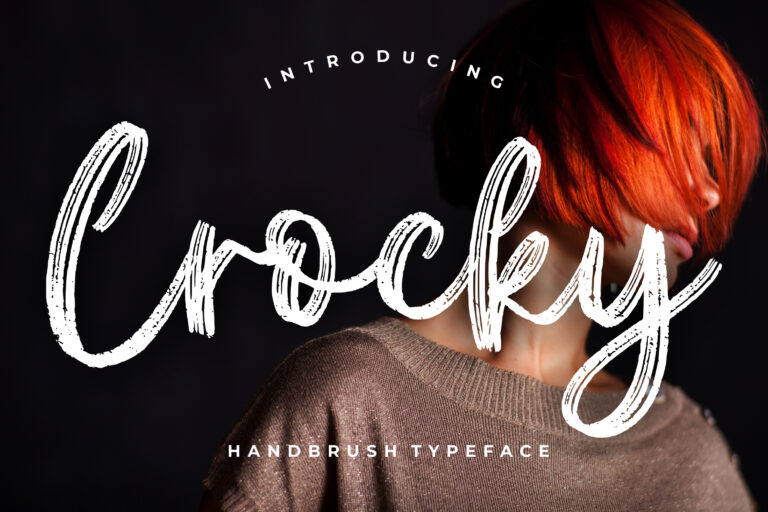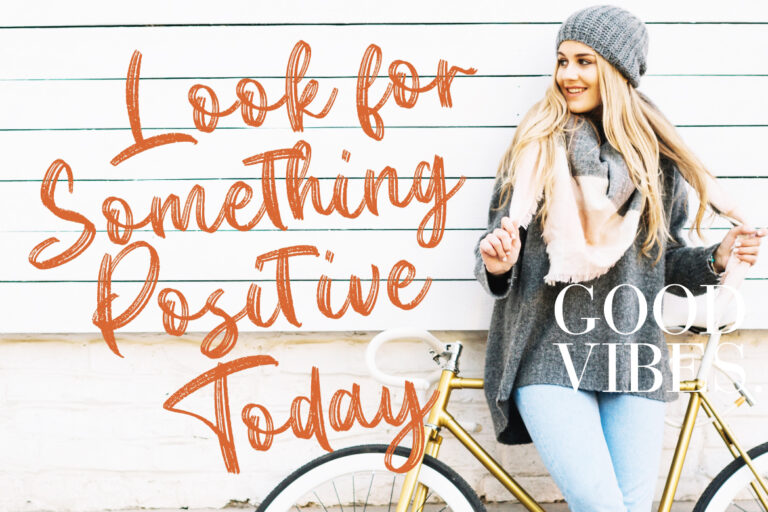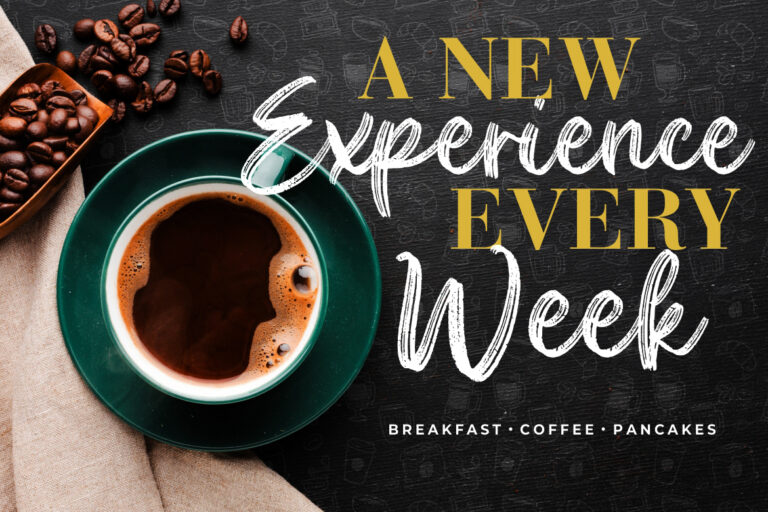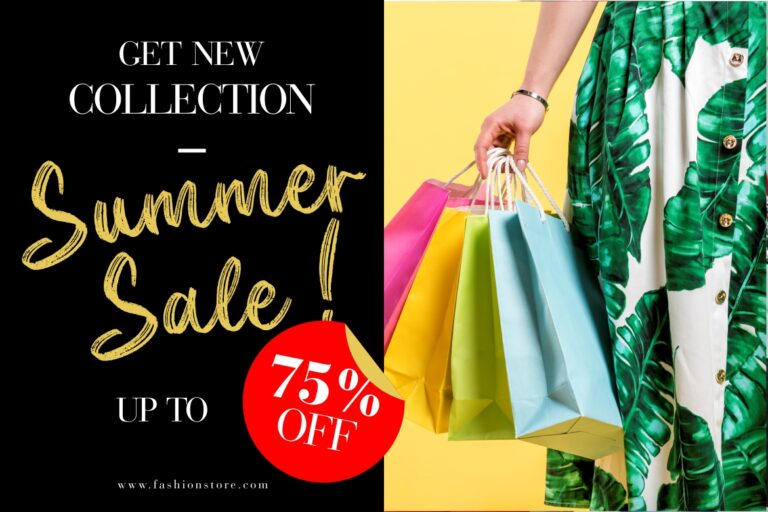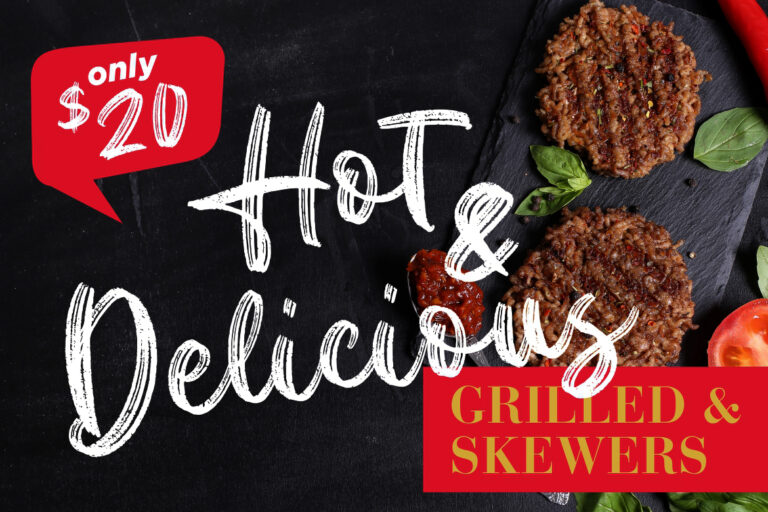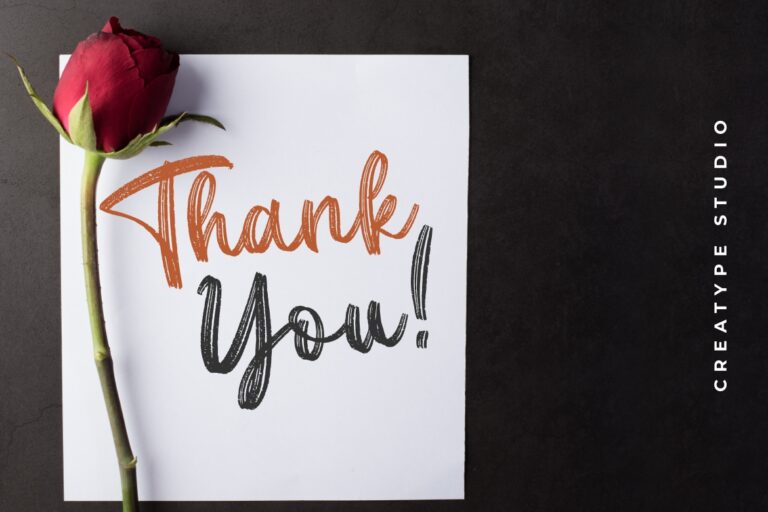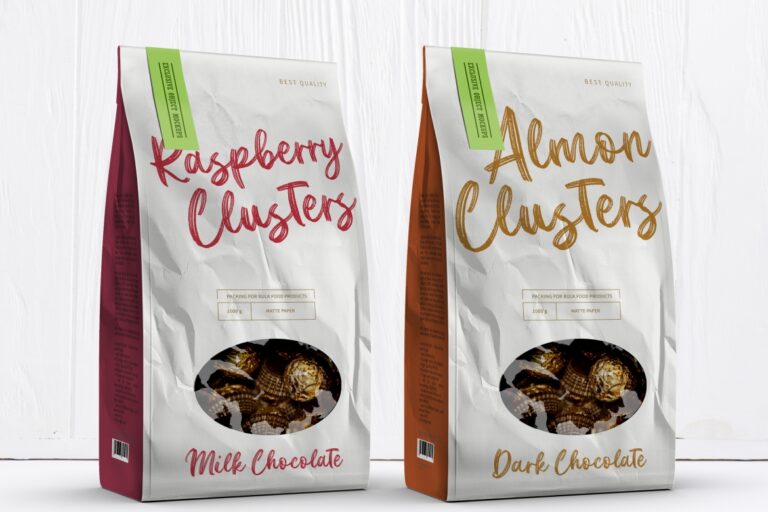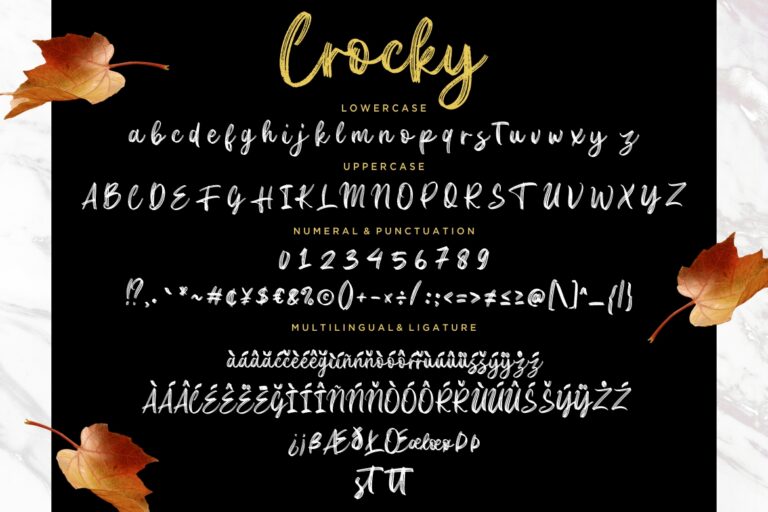
Crocky is handbrush typeface is a brush script that is written casually and full of scratch.
Crocky is perfect for branding projects, logo, wedding designs, social media posts, advertisements, product packaging, product designs, label, photography, watermark, invitation, stationery and any projects that need handwriting taste.
- Fonts include multilingual support for; ä ö ü Ä Ö Ü ß ¿ ¡
Crocky Handbrush Typeface